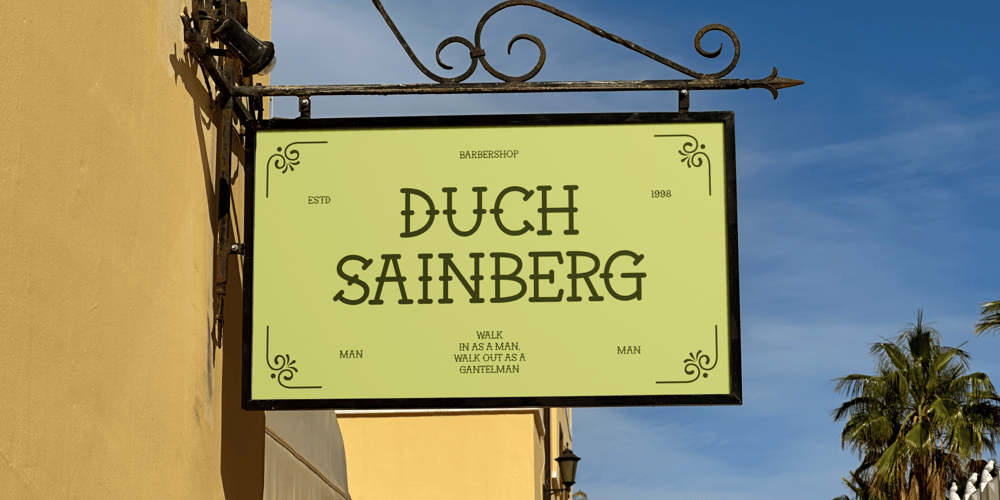
Amonic Ink Font Family was designed by Kurnia Elis Setyorini and published by Naatypo. Amonic Ink contains 1 styles and family package options. Discover the charming charm of Amonic Ink, an affable display font that boasts of a distinct style. Unleash your creativity with this typeface, ideal for adding a touch of brightness and vivacity to any of your design projects. Imbued with a unique artistic flair, Amonic Ink is certain to infuse your works with a level of vibrancy that captivates and inspires.–Uppercase